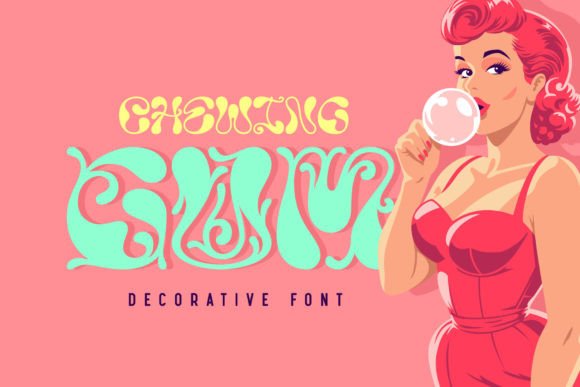
Behold Chewing Gum Font, the epitome of visual artistry, a typeface that transcends the ordinary, designed to ignite your imagination and leave an indelible mark on your creative journey.
Prepare to be captivated by its abstract-shaped, smooth curves and curly elements, a symphony of lines harmonizing to form a visual masterpiece. Chewing Gum Font is not just a collection of letters; it's an expression of individuality, a testament to the boundless power of human creativity.
With each stroke of the pen, watch your designs transform into vibrant works of art. Chewing Gum Font's unique character will elevate your projects to new heights, making them stand out from the mundane and mundane. Embrace the extraordinary and let your designs burst with personality.
Unleash the power of twelve fancy ligatures, the secret weapon for injecting organic flow and natural charm into your lettering. Experience the magic as words come alive, imbued with a touch of elegance and a hint of playfulness. Your designs will exude a sense of authenticity that resonates with your audience, captivating their hearts and minds.
As an added bonus, you'll receive a vector illustration of a stunning pin-up girl, a timeless symbol of beauty and allure. This captivating image will add a touch of vintage glamour to your projects, transporting you to an era of sophistication and charm.
And that's not all! You'll also get your hands on a vector alphabet set, meticulously crafted with handmade volume glossy effects. Each letter is a work of art, polished to perfection, ready to add a touch of luxury and brilliance to your designs.
Chewing Gum Font is more than just a font; it's an experience, a journey of discovery that will unleash your creative potential and redefine your perception of font design. Embrace the unconventional, dare to be different, and let Chewing Gum Font be your guide.